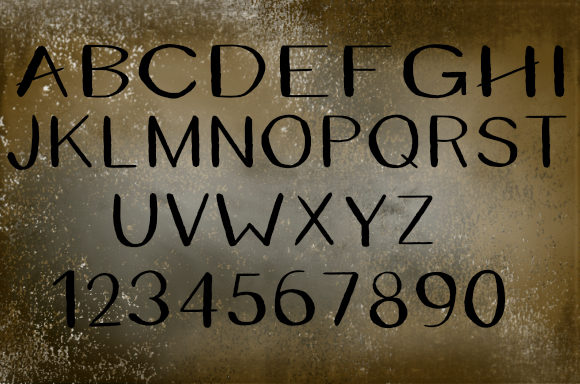
Crazygrunge Font
About Crazygrunge Font
The handwritten Crazygrunge font celebrates everything spooky and is perfect for creating twisted Horror-themed designs.